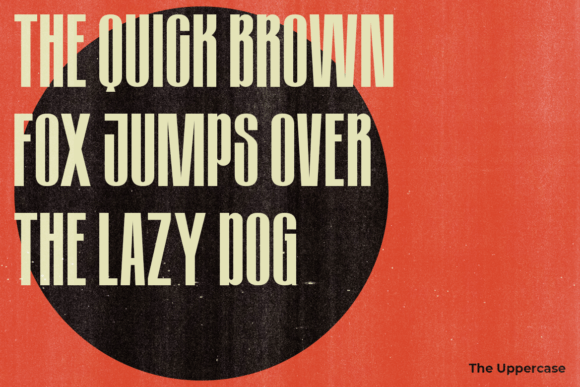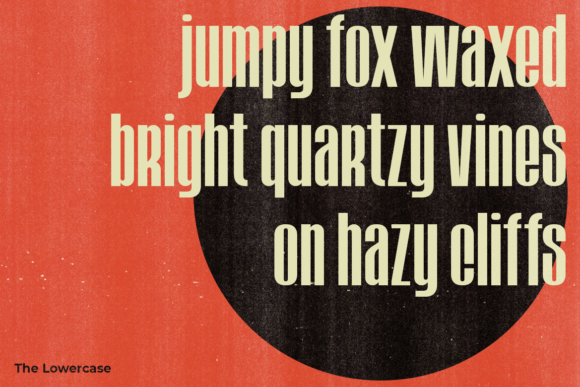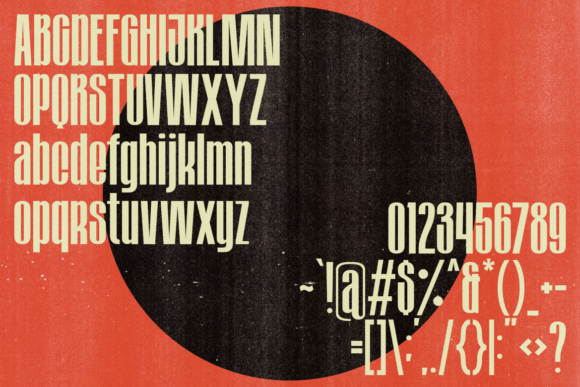
Introduction to Portrein Font
Introducing Portrein: Bold, Ultra Condensed, and Minimalist Step into the modern era of typography with Portrein, a bold sans-serif font that redefines minimalism with an edge.
Crafted for those who dare to push the boundaries of design, Portrein delivers powerful impact while maintaining the clean hierarchy essential for standout display fonts Inspired by todayโs sleek, minimalist aesthetics, Portrein takes a bold leap forwardโperfect for designers looking for a condensed yet commanding font.
Key Features of Portrein Font
Why Choose Portrein Font?